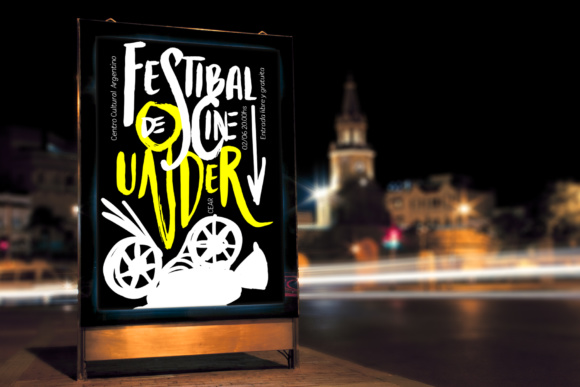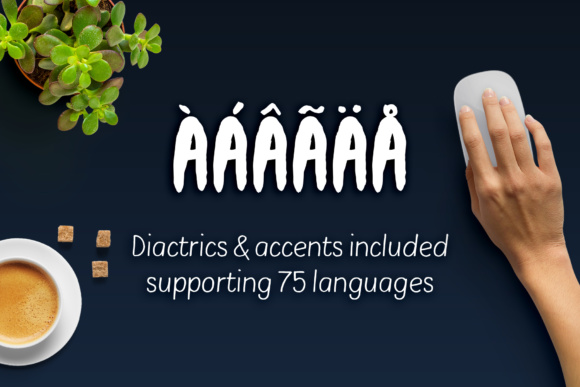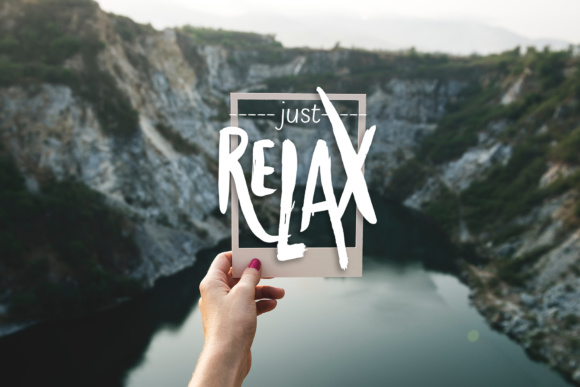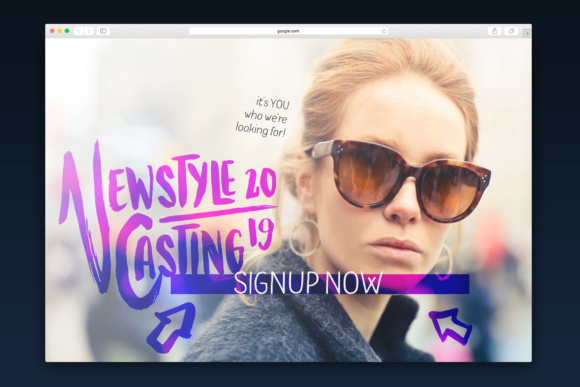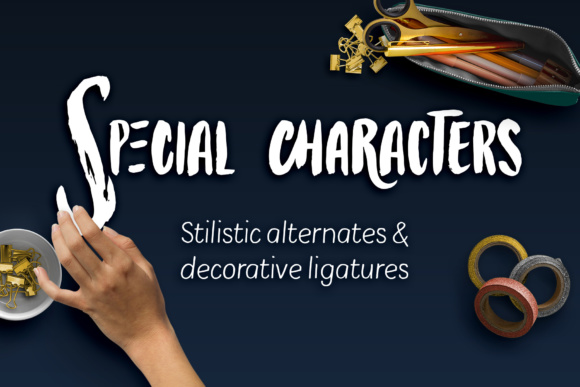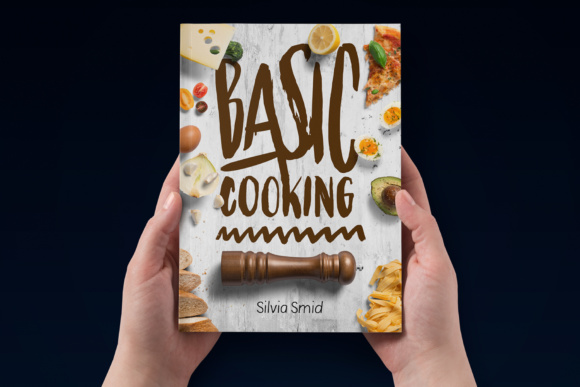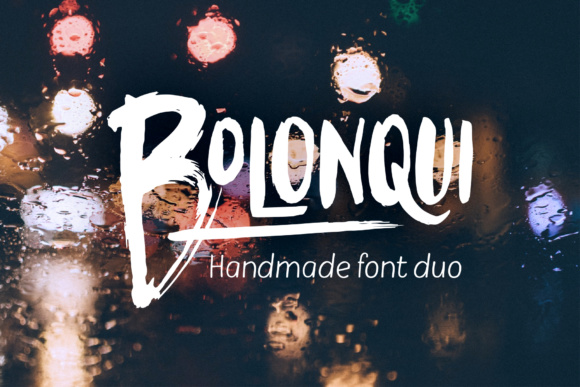
Introducing Bolonqui Duo Font: Elevate Your Designs with a Handmade Touch
In the world of design, fonts play a crucial role in conveying messages and setting the tone for your creative projects. If you’re looking for a font that adds a personal touch and stands out from the crowd, look no further than the Bolonqui Duo Font. This display handmade font duo is perfect for designers and crafters seeking to make a huge visual impact. With its unique combination of brush and script fonts, Bolonqui offers the perfect balance between chaos and calm, allowing you to achieve unbelievable handmade-looking complex settings.
The Power of Handmade Fonts
Handmade fonts have a special charm that digital fonts often lack. They bring a sense of authenticity and personality to your designs, making them more relatable and engaging. The Bolonqui Duo Font takes this concept to the next level by offering a pair of fonts that work harmoniously together. One font features a bold, brush-like style, while the other has a more elegant, script-like quality. This combination allows you to experiment with various design options and create complex, visually appealing settings that capture your audience’s attention.
What Makes Bolonqui Duo Font Stand Out
- Handmade Authenticity: Bolonqui Duo Font is crafted to mimic the look and feel of real brush and script writing. This gives your designs an authentic, handmade appearance that’s hard to replicate with standard digital fonts.
- Versatility: The duo consists of two complementary fonts that can be used separately or together. This versatility opens up a wide range of creative possibilities, from bold statements to subtle accents.
- Perfect Balance: The combination of a bold brush font and an elegant script font offers a perfect balance between chaos and calm. This balance allows you to create visually interesting designs that are both dynamic and harmonious.
- Ease of Use: Despite its complex appearance, the Bolonqui Duo Font is easy to use, even for those who are new to working with handmade or script fonts. Its clear and legible design ensures that your message gets across effectively.
Applications of Bolonqui Duo Font
The Bolonqui Duo Font is incredibly versatile and can be used in a variety of design projects, including:
- Branding and Logos: Create unique and memorable logos that stand out from the competition.
- Invitations and Stationery: Add a personal touch to your invitations, greeting cards, and other stationery items.
- Advertising and Marketing: Use the Bolonqui Duo Font to create eye-catching advertisements and marketing materials that grab attention.
- Packaging: Elevate your product packaging with a distinctive and appealing font.
Tips for Using Bolonqui Duo Font Effectively
To make the most out of the Bolonqui Duo Font, consider the following tips:
- Mix and Match: Experiment with different combinations of the brush and script fonts to find the perfect balance for your design.
- Play with Sizes and Colors: Don’t be afraid to vary the size and color of the fonts to add depth and interest to your designs.
- Keep it Legible: While it’s tempting to use fonts in creative ways, ensure that your text remains legible, especially for body text or important information.
The Bolonqui Duo Font is a powerful tool for designers and crafters looking to add a handmade touch to their projects. With its unique combination of brush and script fonts, it offers endless possibilities for creating visually stunning and impactful designs. Whether you’re working on branding, advertising, packaging, or personal projects, Bolonqui Duo Font is sure to elevate your designs to the next level.
So, if you’re ready to make a statement with your designs and give them a personal, handmade feel, consider incorporating the Bolonqui Duo Font into your creative arsenal. Its versatility, authenticity, and ease of use make it an invaluable resource for anyone looking to stand out in the world of design.